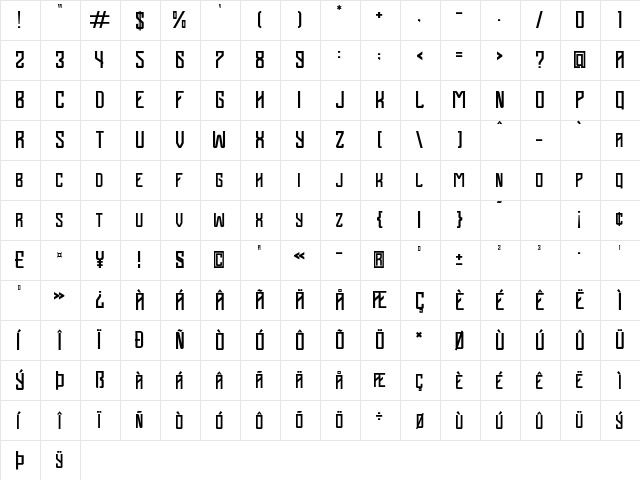
Cyber Sport Regular
Designer: Virgiawan Listanto. 2023
Design Context for Cyber Sport
Cyber Sport has a distinctly futuristic character, with geometric precision and clean angles that feel at home in technology, gaming, and sci-fi contexts.